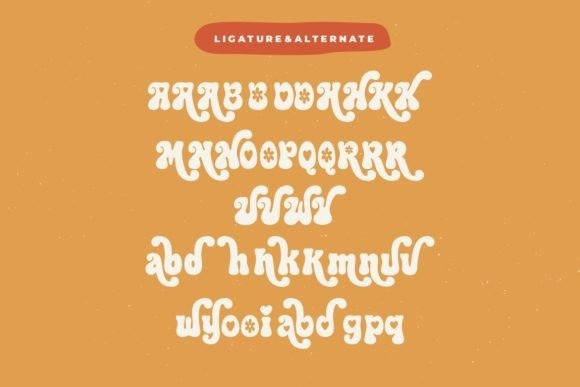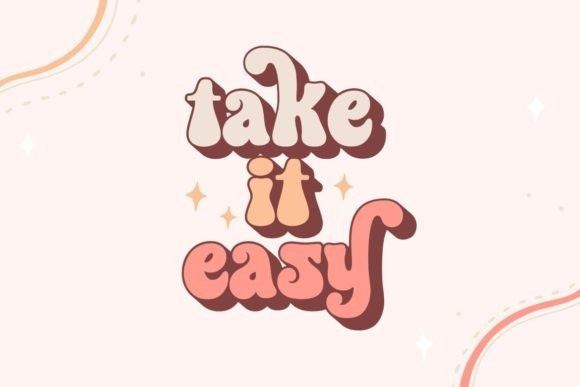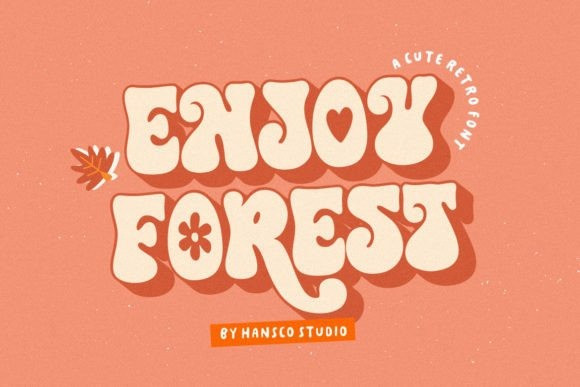
Enjoy Forest Font
Enjoy Forest Font is a retro serif and bold display font. Add this beautiful display font to each of your creative ideas and notice how it makes them stand out!